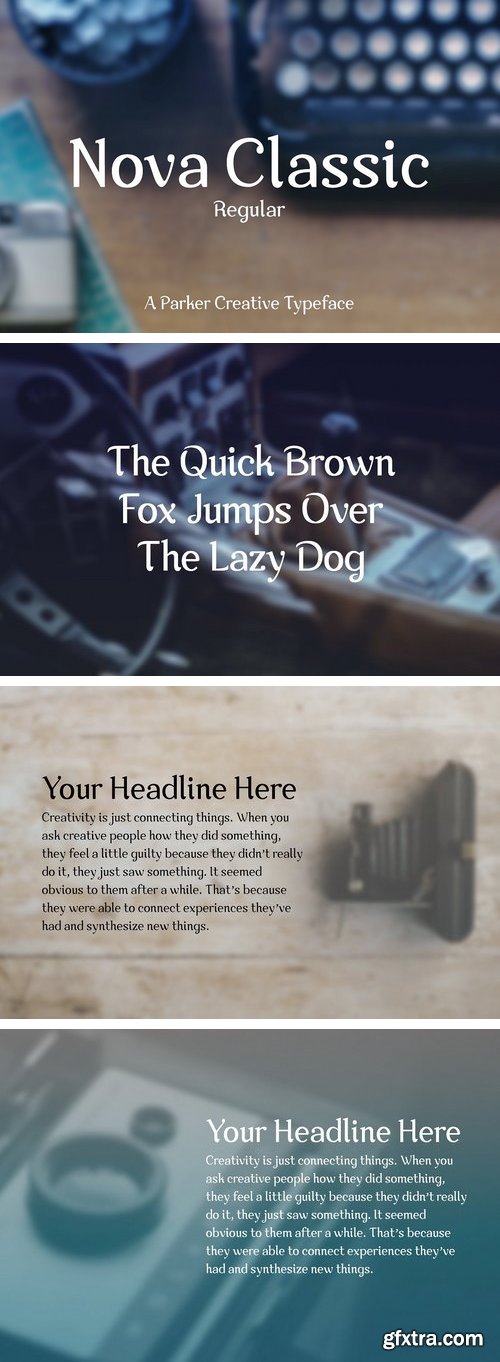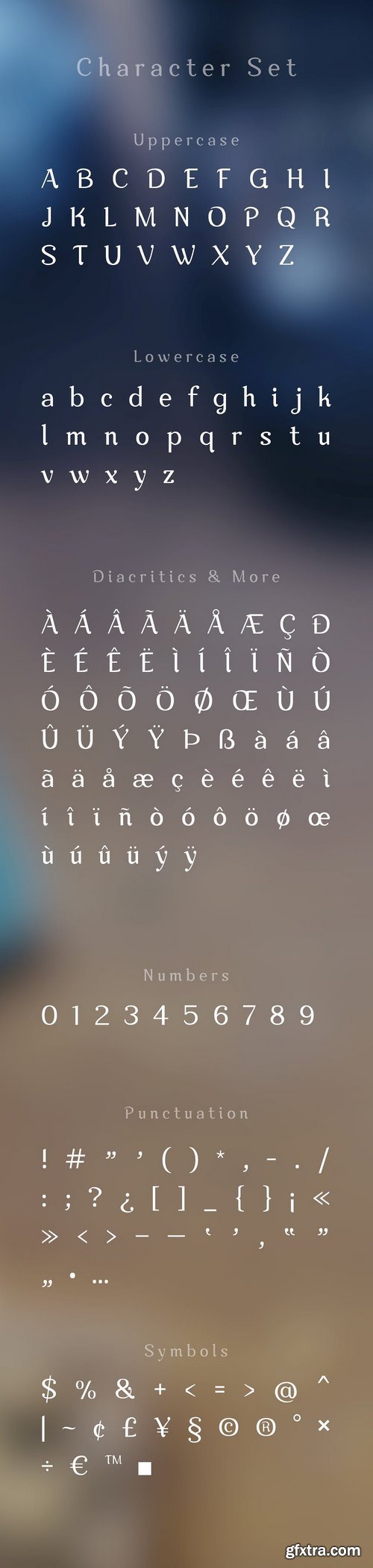
CM - Nova Classic Font - Regular 2022796
Introducing Nova Classic, a fresh and fun display typeface! Inspired by the font ‘Lobster’, Nova Classic features fun characteristics with more consistent attributes across letters, creating a more uniform overall style.